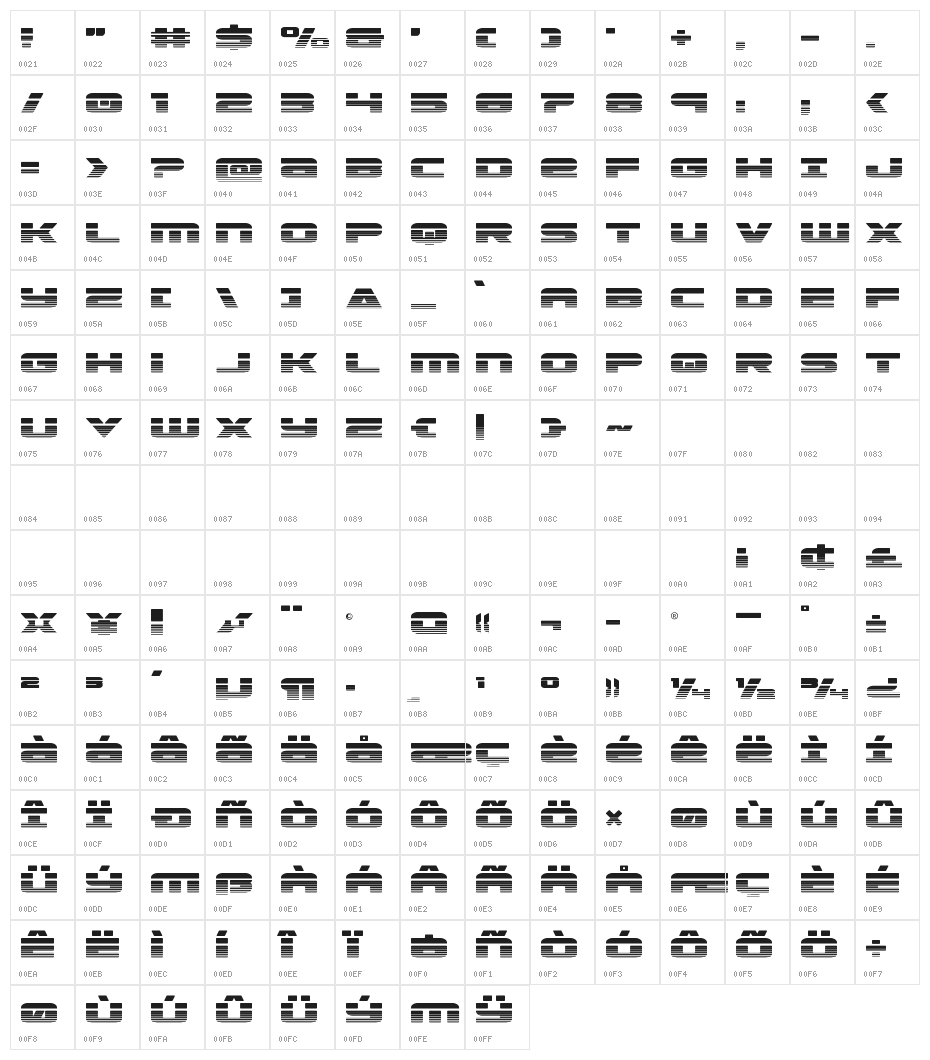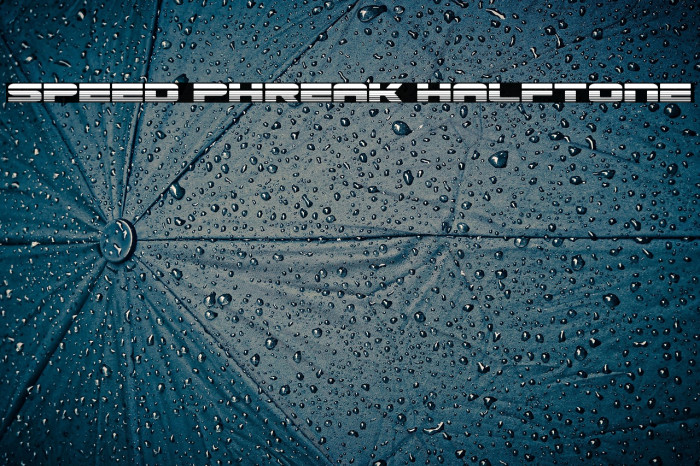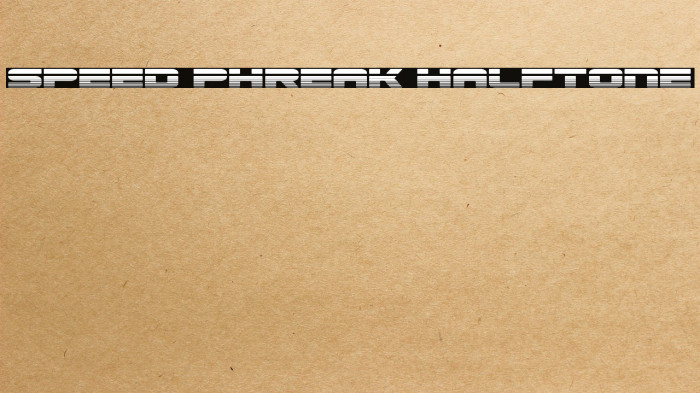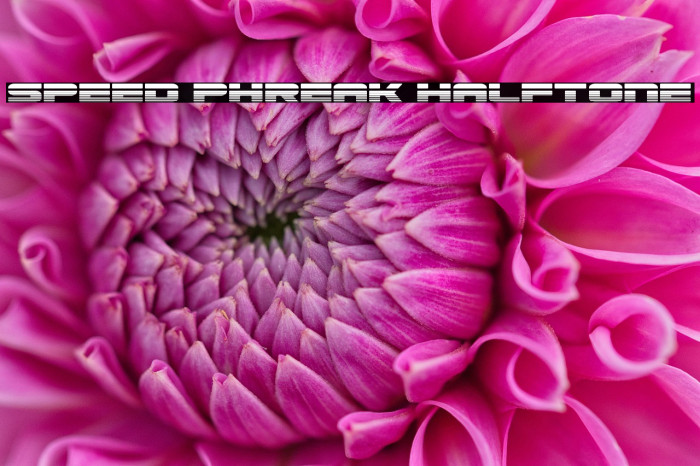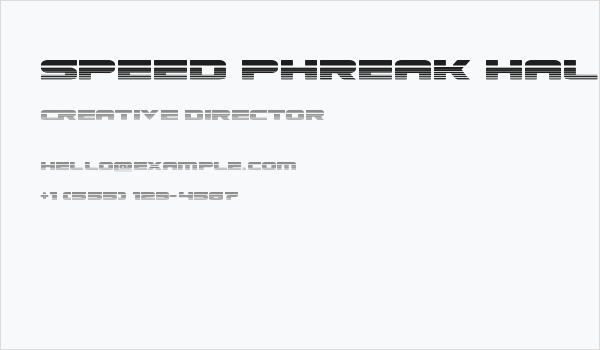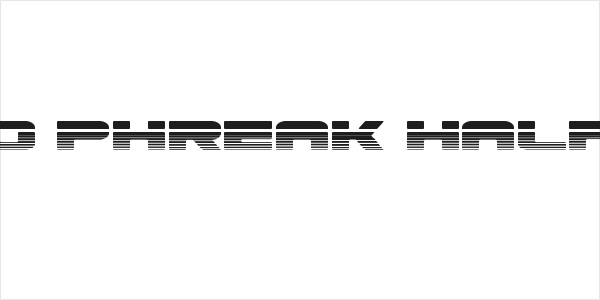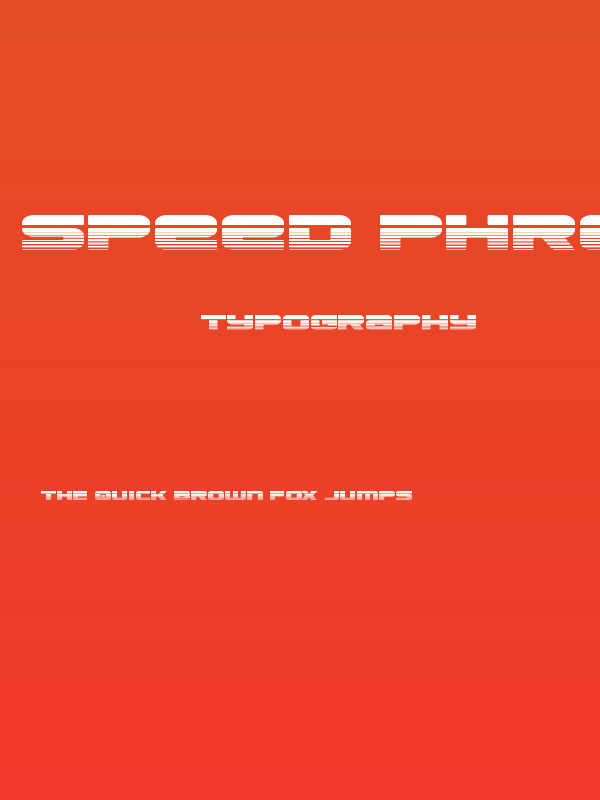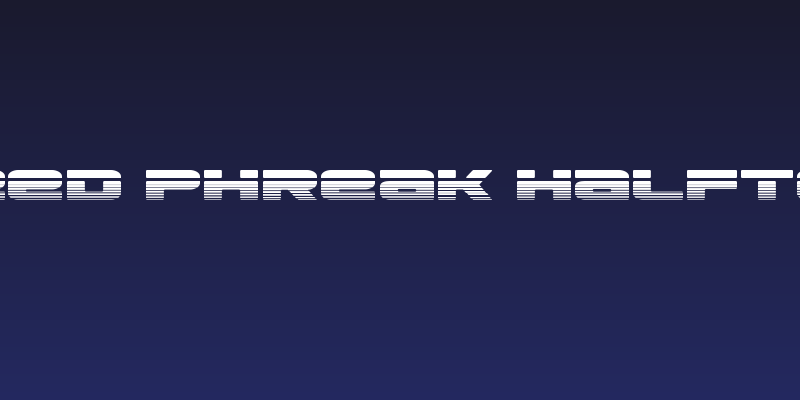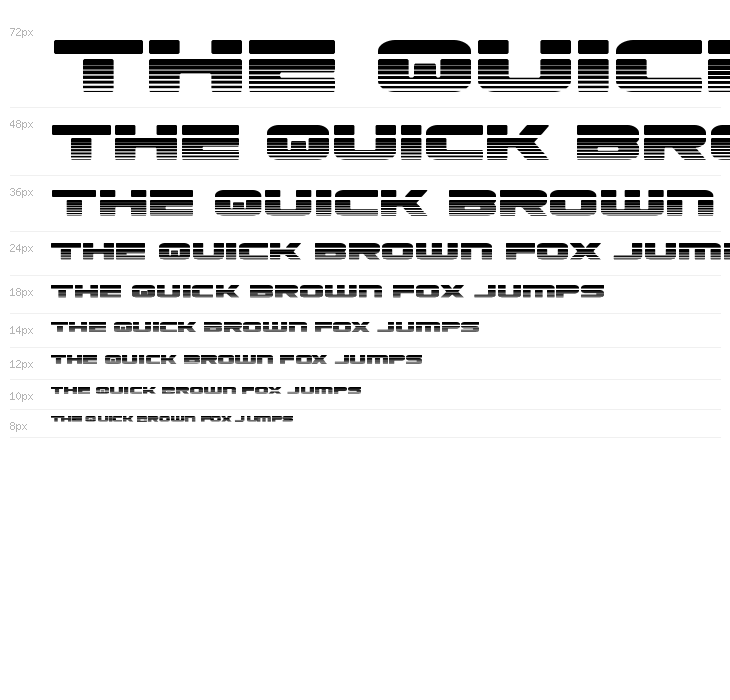
Speed Phreak Halftone Font
Speed Phreak Halftone Description
This font features a bold, futuristic design with a halftone effect that gives it a dynamic and energetic appearance. The characters are constructed with horizontal lines that create a sense of motion and speed, making it ideal for projects that require a modern and edgy look. The uppercase and lowercase letters maintain a consistent style, with each character exhibiting a unique blend of solid and striped elements. The numbers and special characters follow the same design principles, ensuring a cohesive visual identity across all text elements.
| Proposed Projects | Ideal for sports branding, tech-related designs, video game titles, and futuristic posters. |